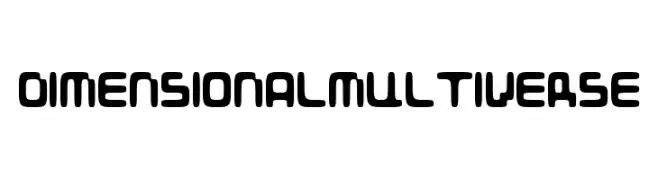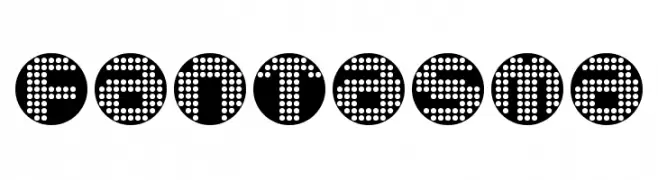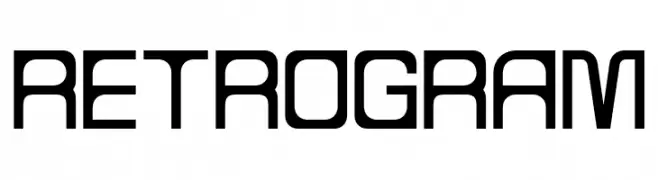
( bike chain )
A bold, industrial font inspired by bicycle chains with a rugged, mechanical look.
( pegboard )
A bold, geometric font with a modern and precise design.
( LOCKDOWN ZONE )
A bold, impactful font with uniform strokes and clear readability.
( GLOBAL PANDEMIC )
A bold, modern font with thick strokes and a strong, structured appearance.
An ornate and decorative font with intricate details and embellishments.
A retro-futuristic font with geometric shapes and a clean, minimalistic design.
( FANTASMA )
A dot matrix style font with characters enclosed in circles, offering a retro digital aesthetic.
( OMICRON VARIANT )
A playful, eerie font with irregular, hand-drawn letters and a spooky vibe.
A futuristic, geometric font with rounded edges and uniform strokes.